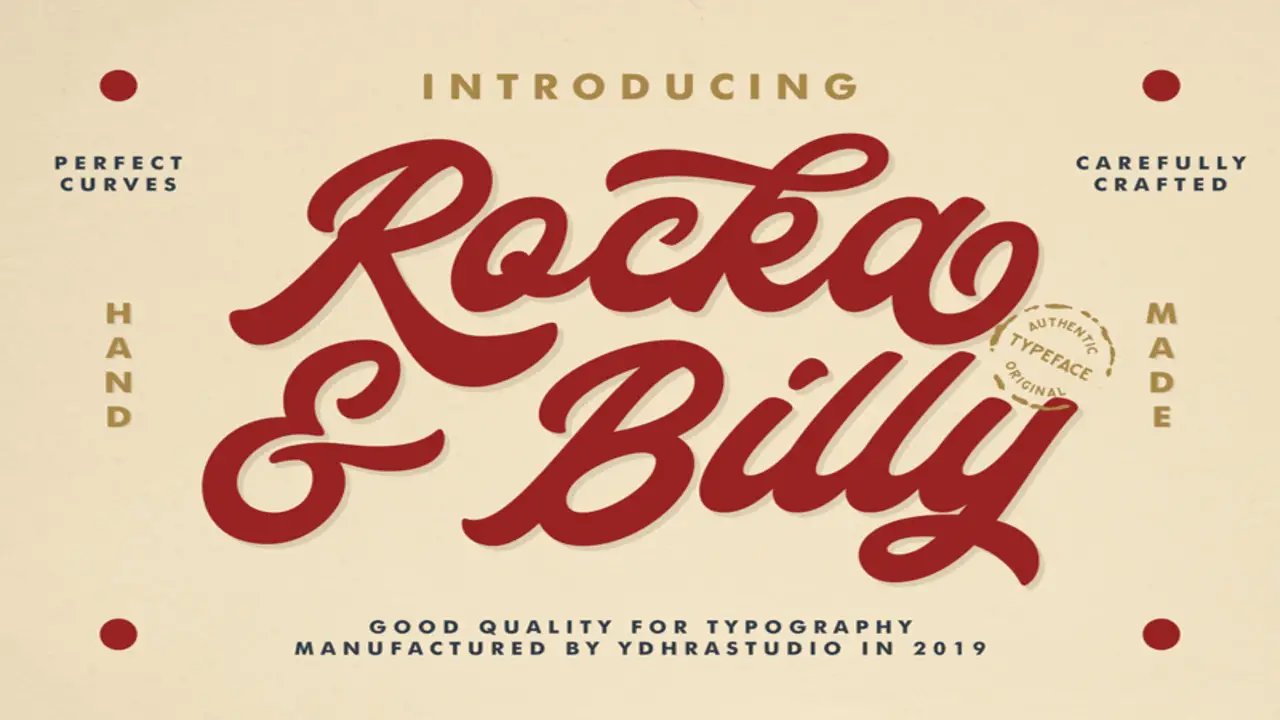
Comic fonts are crucial to visual storytelling in comic books and graphic novels. They help to set the tone, convey emotions, and give each character their unique voice.
Various types of fonts are handy in comics, ranging from bold and expressive to more traditional and easy to read. The choice of font can greatly impact the overall feel and readability of the comic. We will dive deep into the world of comic fonts.
From exploring what font do comics use, the top 5 best comic fonts like Hey Comic, Nikopol Typeface, and Adam Warren Pro Font Family to providing tips on choosing the right comic font for your creations, we’ve got you covered. So get ready to level up your comic game with the perfect font.
What Font Do Comics Use: The 5 Best Comic Fonts
Comic books and graphic novels have unique styles, including the font used for dialogue and captions. The most commonly used font in comics is called “Comic Sans MS.” This font is known for its playful and informal appearance, which complements the visual storytelling of comics.
It is easy to read and has a friendly vibe that adds to the overall enjoyment of the comic reading experience. However, When creating comics, choosing the right font is crucial in conveying the tone and style of your story. There are a variety of fonts that are commonly used in comics, each with its own unique characteristics. What font do comics use? Here are five of the best comic fonts that you can consider using for your next comic project:
1. Hey Comic
Hey Comic, a popular choice for comic lettering, stands out with its bold and playful appearance. This hand-drawn font adds an authentic touch to your comic book or graphic novel. It’s perfect for dialogue and narration, whether you’re working on print or digital comics. With its versatility and wide range of styles, Hey Comic offers comic creators the freedom to bring their characters and stories to life.
2. Nikopol Typeface
Nikopol Typeface is a widely favored font in the comics community, known for its bold and dynamic appearance. Comic creators choose this typeface to elevate their storytelling and capture readers’ attention.
Drawing inspiration from “The Nikopol Trilogy” graphic novel, it embodies unique letterforms with sharp angles and exaggerated strokes, creating a futuristic and edgy atmosphere.
Its versatility allows it to excel in dialogue and sound effects, making it an invaluable tool for comic creators. With its eye-catching appeal and adaptability, Nikopol Typeface is a perfect choice for any graphic novel or comic book project.
3. Adam Warren Pro Font Family
The Adam Warren Pro Font Family, popular among comic book artists and designers, is known for its versatility and readability. This font family perfectly captures comic books’ unique style and energy with various styles like bold, italic, and condensed.
The Adam Warren Pro Font Family is a go-to option for dialogue, sound effects, or any comic project. So, enhance your storytelling experience with this font that matches the tone and style of your comic book, leaving a lasting impression.
4. Billy Font
With its bold and dynamic appearance, Billy font is popular among comic creators. This comic font is specifically designed to mimic the style of lettering commonly used in comic books, enhancing a comic’s overall tone and aesthetic.
Its exaggerated curves and thick strokes make it perfect for action-packed scenes and expressive dialogue. Whether in printed comics or digital formats, Billy font offers great legibility, ensuring that your comic is visually appealing and engaging.
5. Best Friends Comic Font
Best Friends Comic Font is popular among comic artists due to its playful and energetic look. With bold, thick strokes, this font adds a dynamic and expressive appearance to any comic. It is highly legible and suitable for dialogue and sound effects. Along with Comic Sans, Blambot, and Wild Words, it belongs to the diverse world of comic book lettering, providing the perfect choice for creators in both printed and digital formats.
Tips On Choosing The Right Comic Font
Choosing the right font for your comic is crucial in creating the desired tone and atmosphere. There are a few key factors to consider when selecting a comic font. Ultimately, the right comic font depends on your personal preferences and the specific needs of your story. Don’t be afraid to experiment and find a font that perfectly captures the essence of your comic!
- Legibility: Make sure the font is easy to read, even at smaller sizes or when used for dialogue.
- Style: Consider the style and genre of your comic. Different fonts can convey different moods, so choose one that complements the overall aesthetic of your story.
- Characterization: Fonts can help differentiate between characters’ voices. Experiment with size, weight, and style variations to give each character a unique voice.
- Balloon compatibility: Ensure your chosen font works well within speech balloons without overlapping or crowding the text.
5.Are Any Specific Fonts Commonly Handy For Dialogue Or Sound Effects In Comics?
Ans: Specific fonts are commonly handy for dialogue and sound effects in comics. Comic Sans, Blambot’s Anime Ace, and Comicraft’s Wild Words are popular choices for dialogue. For sound effects, fonts like Comicraft’s Boink and Onomatopedia are commonly used. The choice of font depends on the comic’s tone and style.